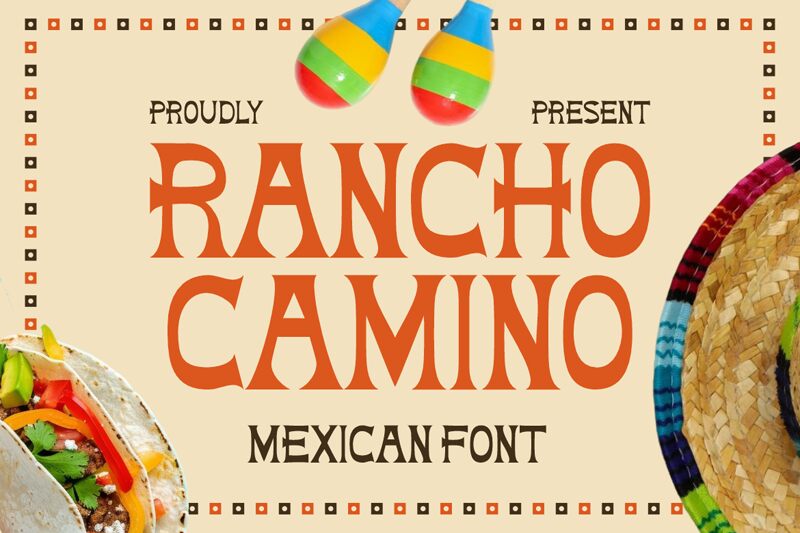
Rancho Camino font family is an expressive and dynamic font with a foreign touch to its wavy style. Designed by PutraCetol Studio, this free font family has a bold and lively character with its ornamental and decorative features.
Its cultural and festive design gives the font a sense of movement that is highly attractive to any audience. Express yourself with this artistic typeface in projects like greeting card invitations, branding, media advertisements, posters, and packaging designs.
It is just as great in effortless projects like addition to video editing, pop-up museums, T-shirt design, and wallpaper pattern creation. This font family, which consists of 2 font styles, is available for personal use only. Although it is free, a purchase or donation is needed for its use in any commercial project.